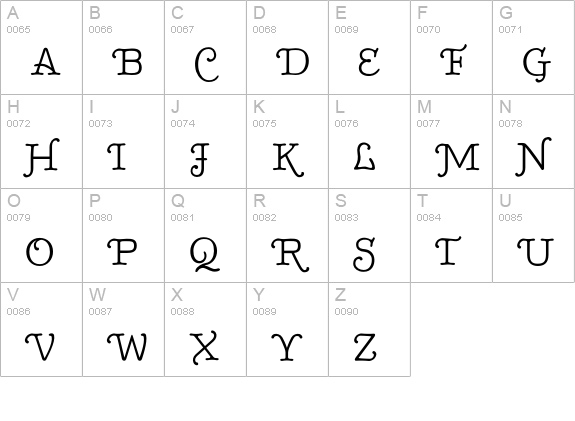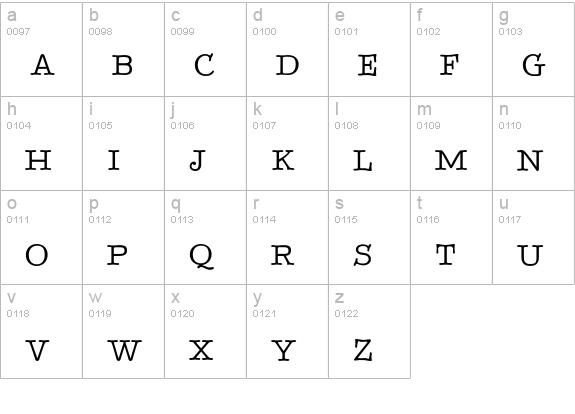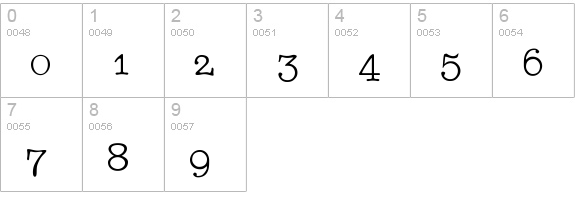
TypenradSpecial Font Details
Introducing TypenradSpecial, a captivating and versatile font that is sure to make a lasting impression. With its unique and eye-catching design, this font is perfect for adding a touch of elegance and sophistication to any project. TypenradSpecial features beautifully crafted letterforms that effortlessly blend modernity with a hint of vintage charm. Its clean lines and precise curves create a sense of balance and harmony, making it a truly versatile font that can be used in a variety of contexts. Whether you're designing a logo, creating a poster, or crafting a stunning website, TypenradSpecial will elevate your work to new heights. Its bold and distinctive characters demand attention, ensuring that your message will be heard loud and clear. But what sets TypenradSpecial apart from other fonts is that it is not only visually stunning, but it is also freely available to download at FontsMarket.com. Yes, you read that right - this exceptional font can be yours at no cost! Now you can enhance your designs without breaking the bank. So why wait? Download TypenradSpecial today and unleash your creativity. Whether you're a professional designer or a hobbyist, this font will undoubtedly become a valuable asset in your typography toolbox. Don't miss out on this incredible opportunity to add a touch of elegance and style to your projects. Get your hands on TypenradSpecial now and let your creativity soar!